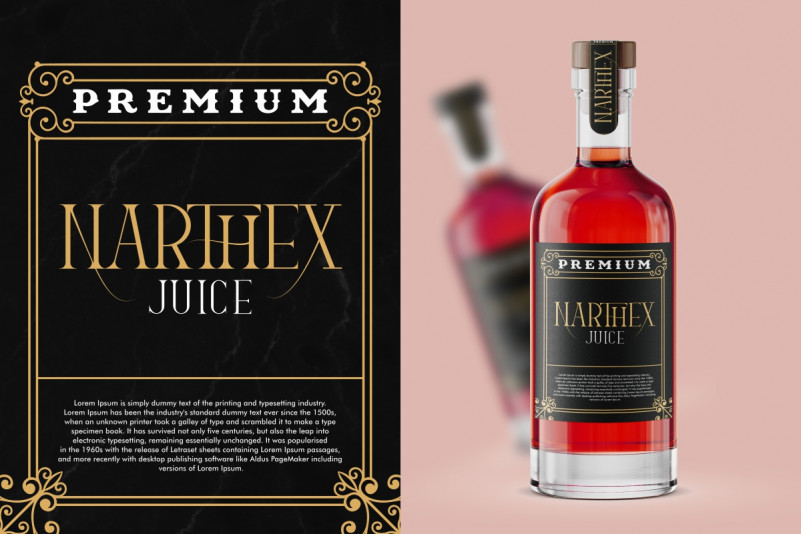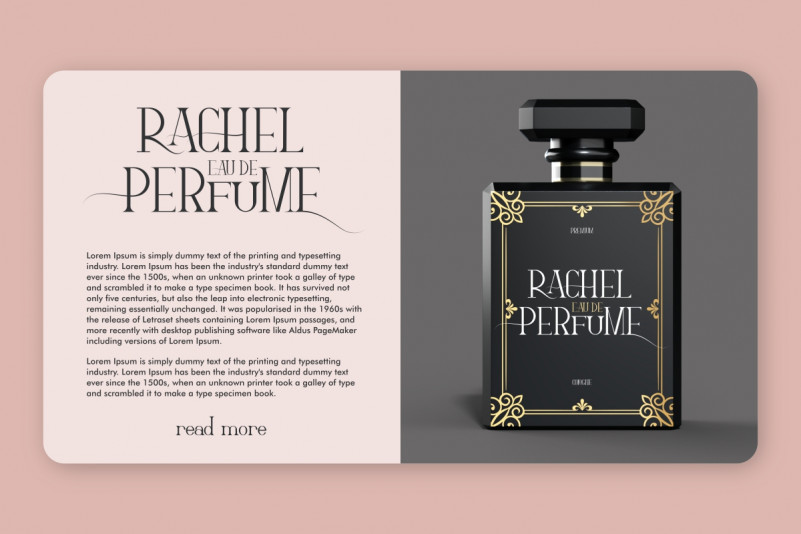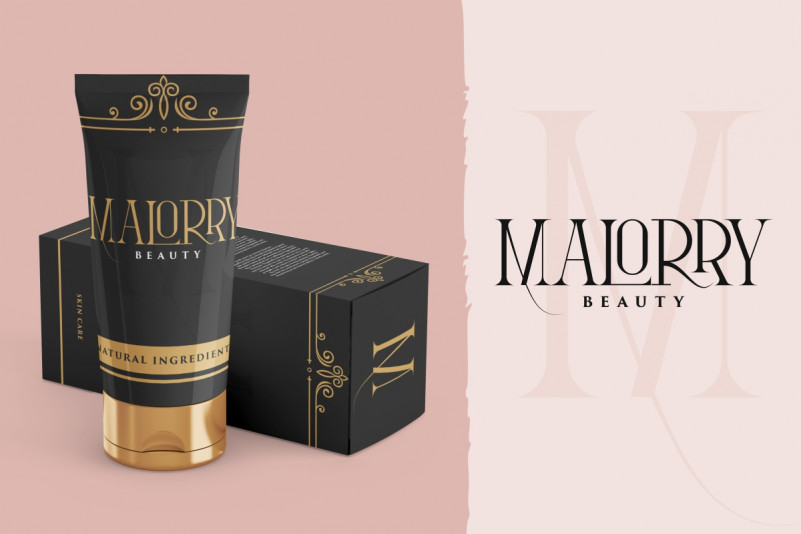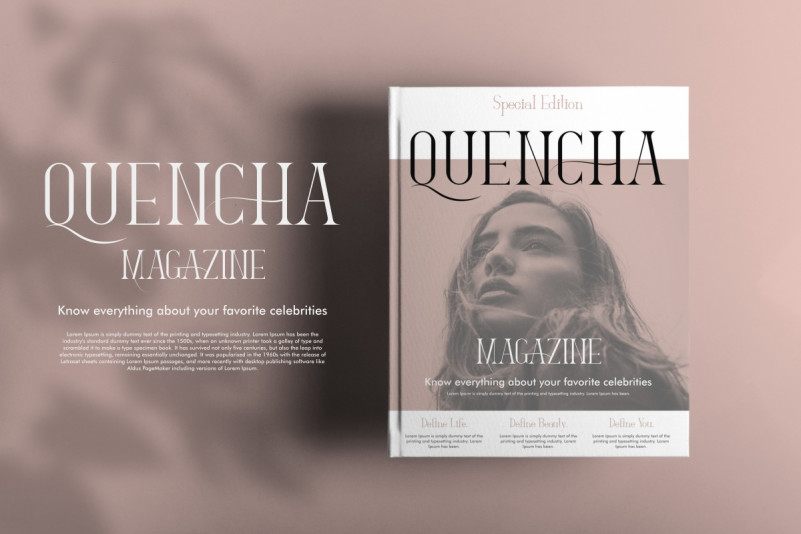
Gamiela Font
Gamiela Serif Font
This font is remotely made by RaisProject team in Indonesia. The font was handcrafted for any your special projects including : headlines, promotion, events, branding, advertising, magazine, signage, invitation, stationery, social media posts, label, or and any projects that need unique strong style. The industries for this font is Cosmetic, Beauty, Wedding, Game, Magazine, Music, Fashion etc. Gamiela Font includes full set of gorgeous uppercase and lowercase letters ,numerals and Multi languages characters.